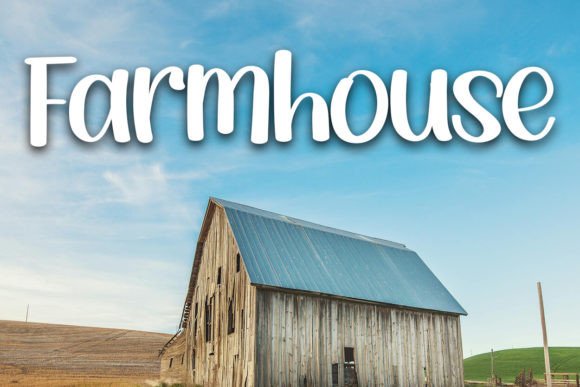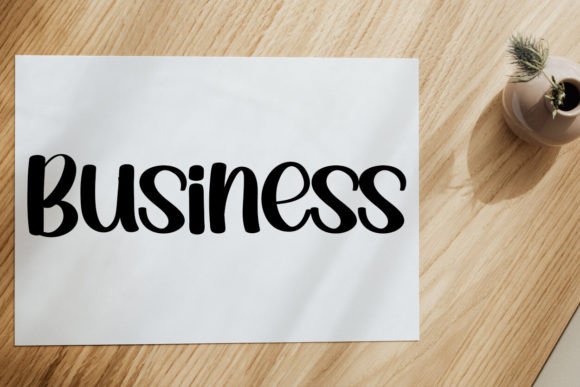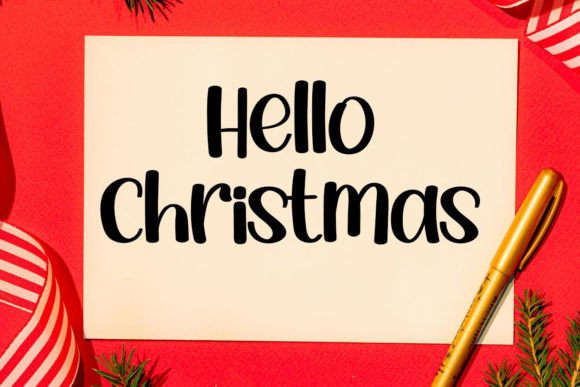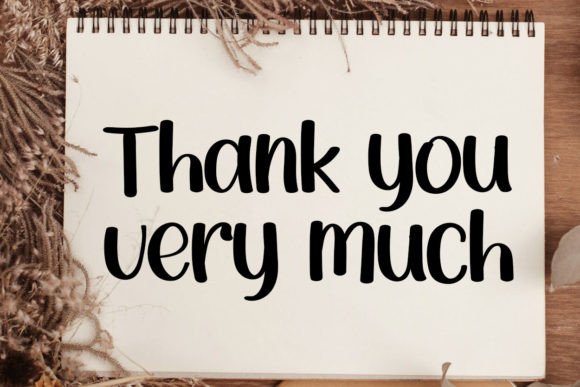
The Catch: How Fishing Font Can Reel in Your Design Projects
I’ll never forget the time I was working on a branding project for a local outdoor gear shop. I had the logo concept nailed, but I was struggling to find the perfect font to complement it. The client wanted something friendly, approachable, and outdoorsy. I scoured the internet, tried out a dozen fonts, but nothing seemed quite right. That’s when I stumbled upon Fishing Font, and it was love at first sight! ✨
So, what makes Fishing Font so special? Here are a few things I love:
- ✅ Unique and Handwritten: Fishing Font has a one-of-a-kind, handwritten feel that’s perfect for designs that need a personal touch.
- ✅ Natural and Earthy: The font’s organic style makes it a great fit for outdoor, environmental, or lifestyle brands.
- ✅ Highly Versatile: Whether you’re designing a logo, brochure, or social media graphic, Fishing Font adapts seamlessly.
Of course, no font is perfect. Here are a few quirks to keep in mind:
- ⚠️ Limited Formality: Fishing Font is best suited for informal designs. It may not be the best choice for super formal or corporate projects.
- 🤔 Glyph Limitations: While the font has a great range of characters, it may not have every special glyph or symbol you need.
The Story Behind Fishing Font
Fishing Font was designed by a talented type designer who wanted to capture the carefree spirit of a summer day by the lake. With its natural, handwritten style, Fishing Font is perfect for designs that need a friendly, approachable feel.
Q: What is Fishing Font best suited for?
A: Fishing Font is ideal for informal designs, such as branding, packaging, and marketing materials for outdoor, environmental, or lifestyle brands.